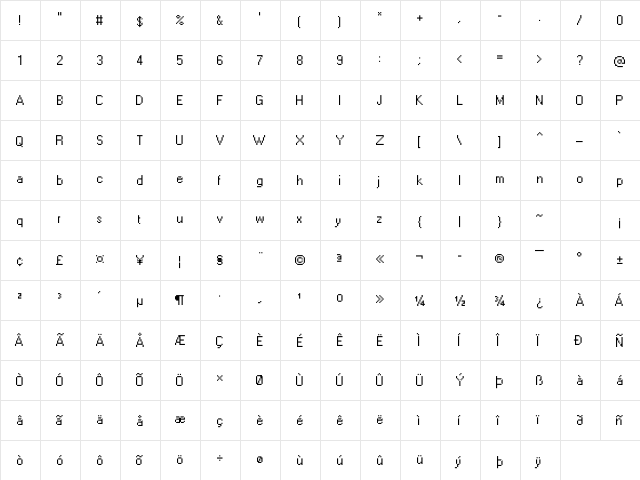
LeviWindows Regular
| Foundry | Levi Szekeres |
| Designer | Levi Szekeres |
Design Context for LeviWindows Typeface
LeviWindows takes a measured approach to typography — its balanced proportions and neutral character make it a reliable workhorse for both digital and print work.